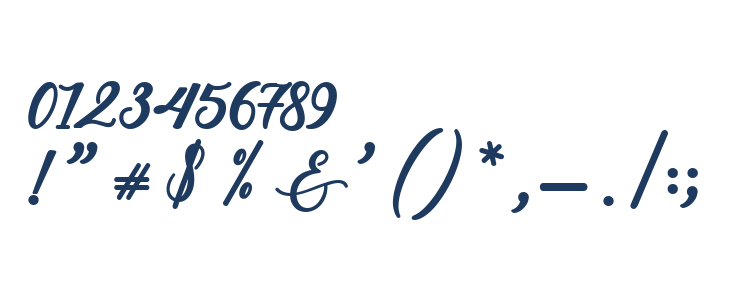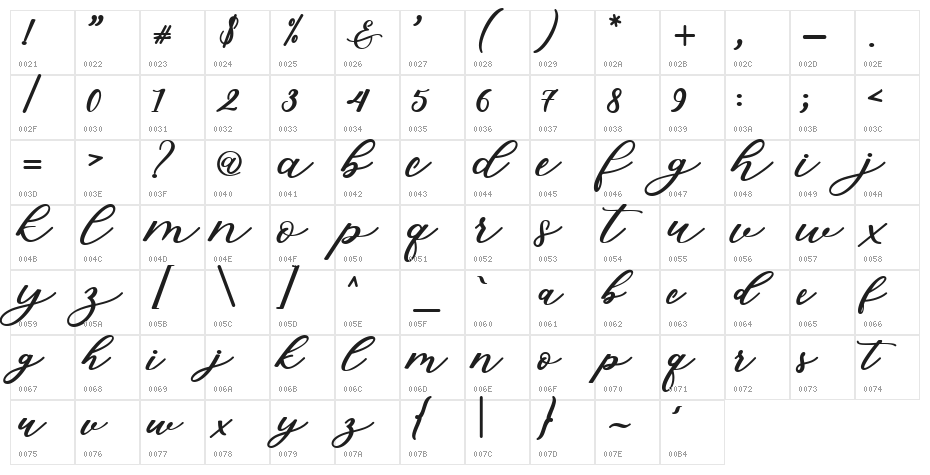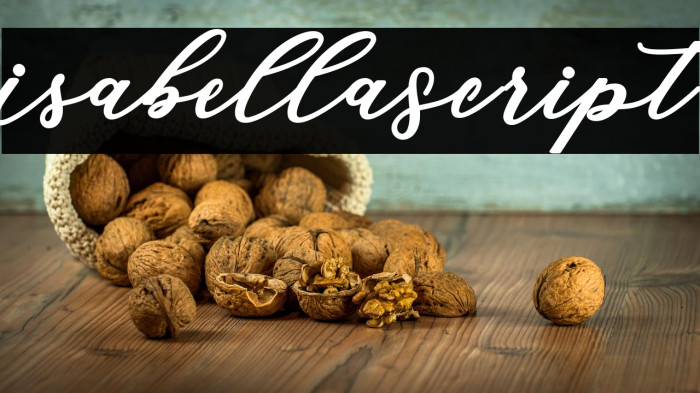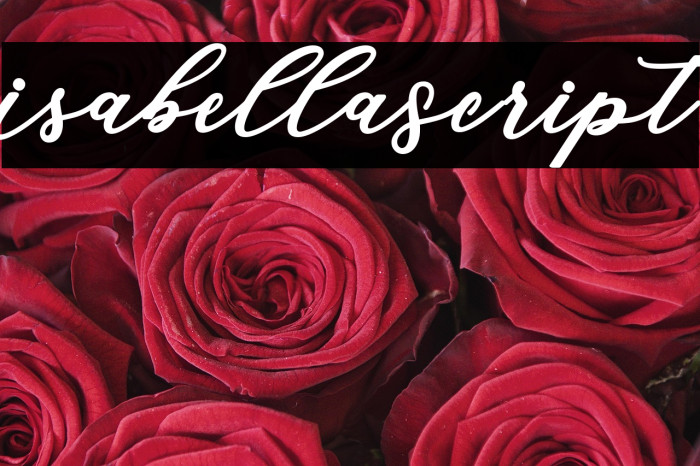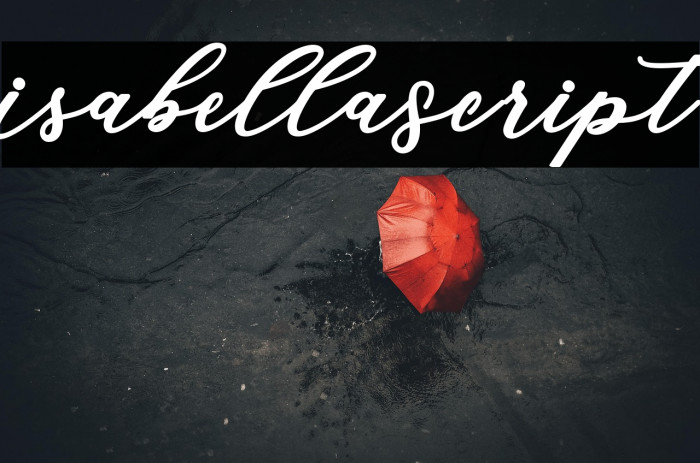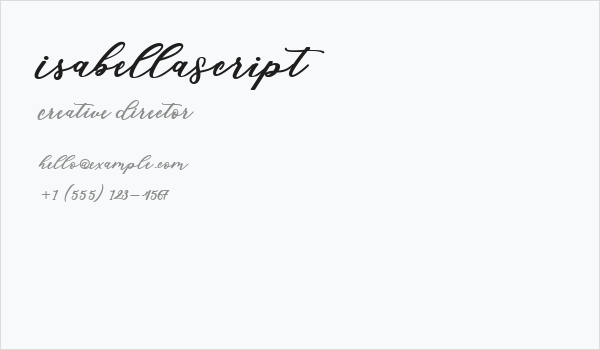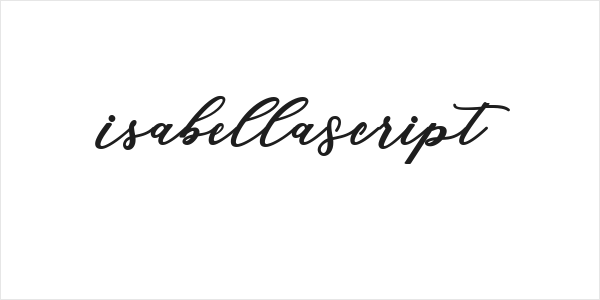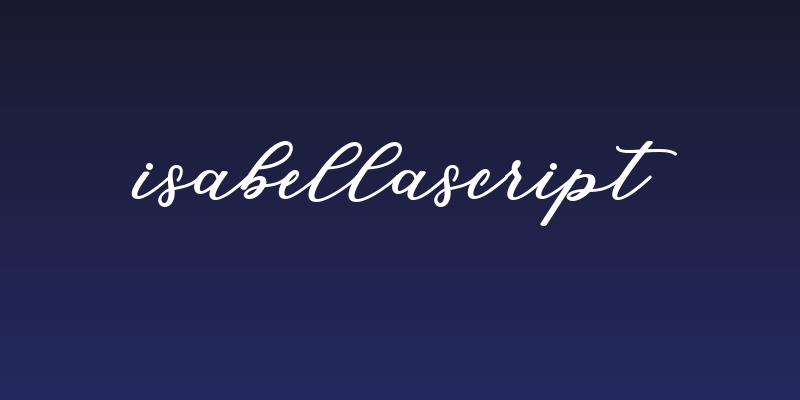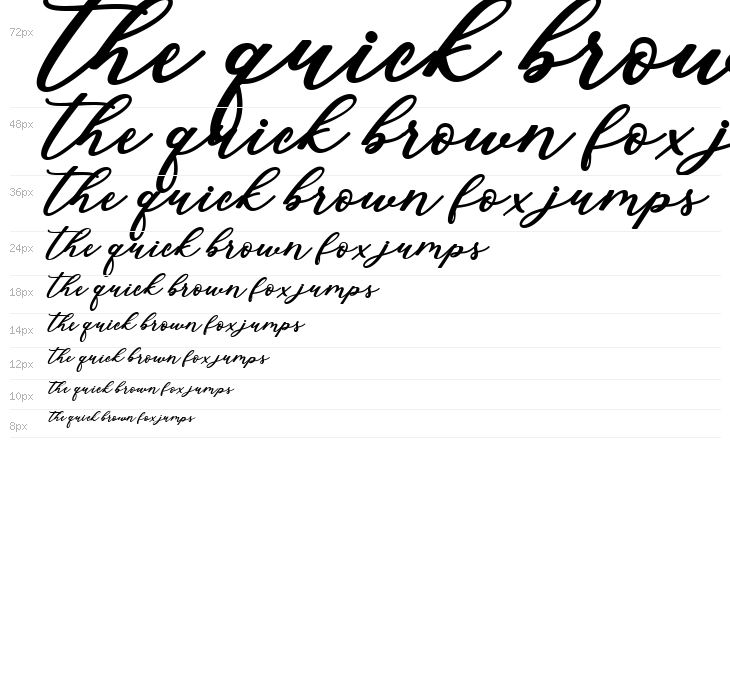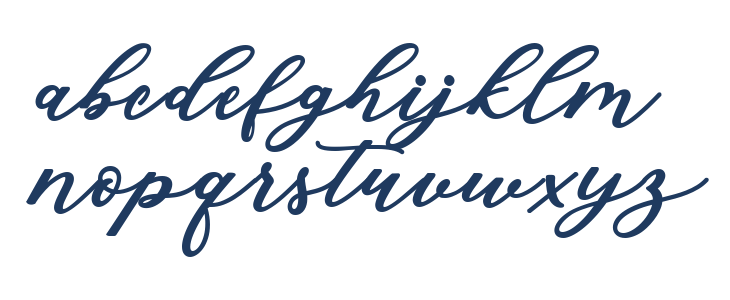
IsabellaScript Font
IsabellaScript Description
This elegant script font features flowing, cursive letters with a smooth and graceful appearance. The characters are connected, creating a seamless and fluid look that mimics natural handwriting. The strokes are moderately thick, providing a bold presence while maintaining a delicate touch. The font includes both uppercase and lowercase letters, numerals, and a variety of punctuation marks, making it versatile for different design needs. Its stylish curves and loops add a sophisticated flair, perfect for projects that require a touch of elegance and personal expression.
| Overall Style | Elegant |
| Use Case | Logos, Invitations, Decorative text |
| Proposed Projects | Ideal for wedding invitations, greeting cards, branding, and logo design. |